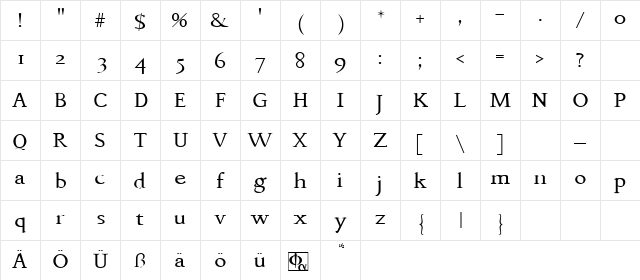
Phaedrus Normal Free Font
Phaedrus Normal
Design Context for Phaedrus
Phaedrus is a composed and adaptable typeface that performs quietly and consistently across a wide range of design contexts.
Pro Tip: Use Phaedrus in both headline and body roles to test its range before committing to a single application.